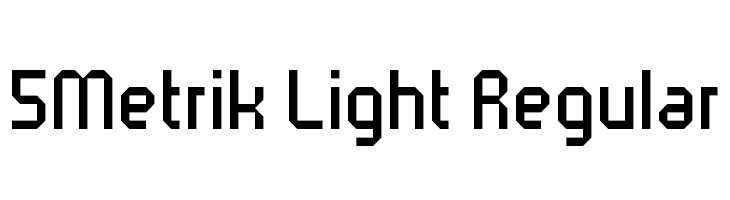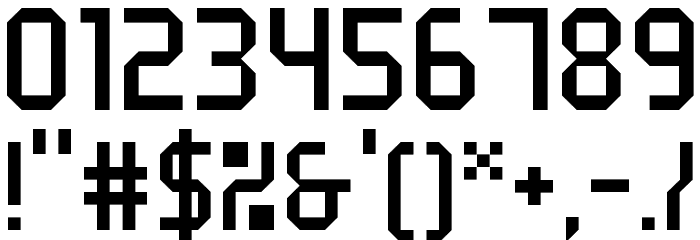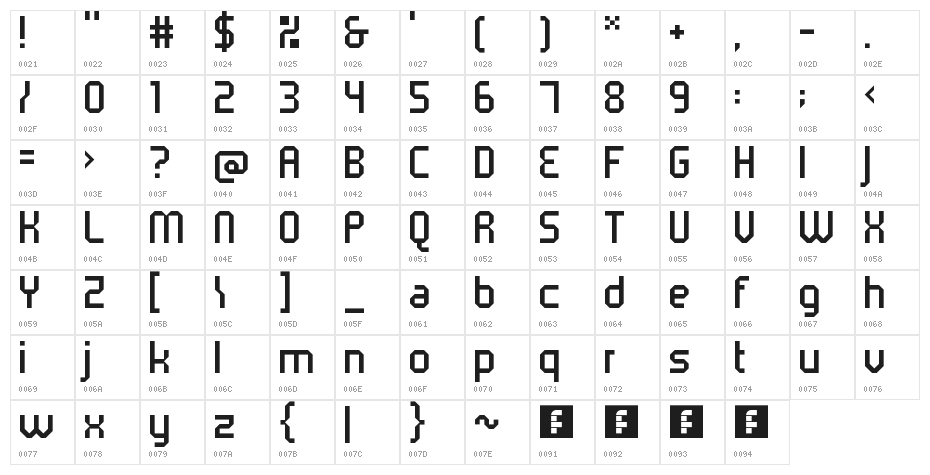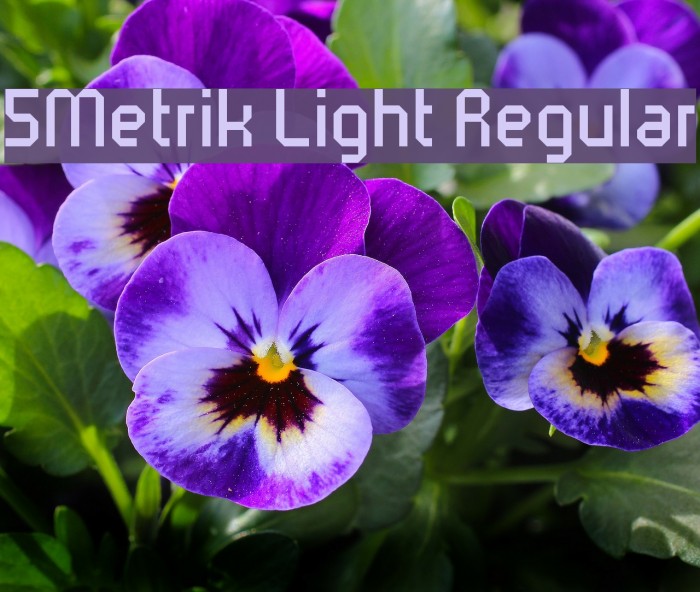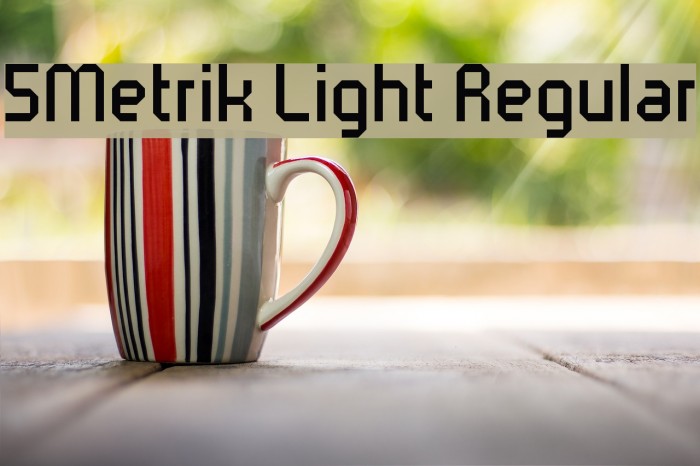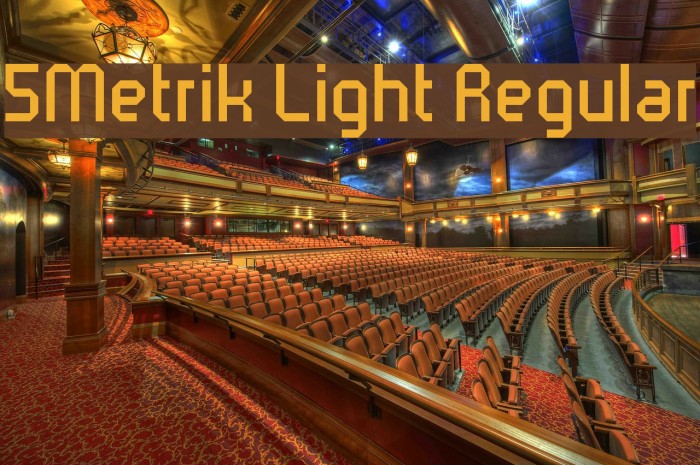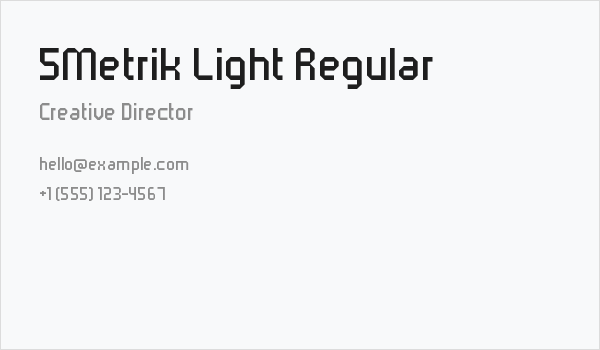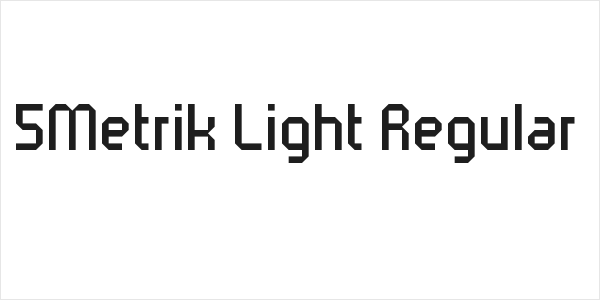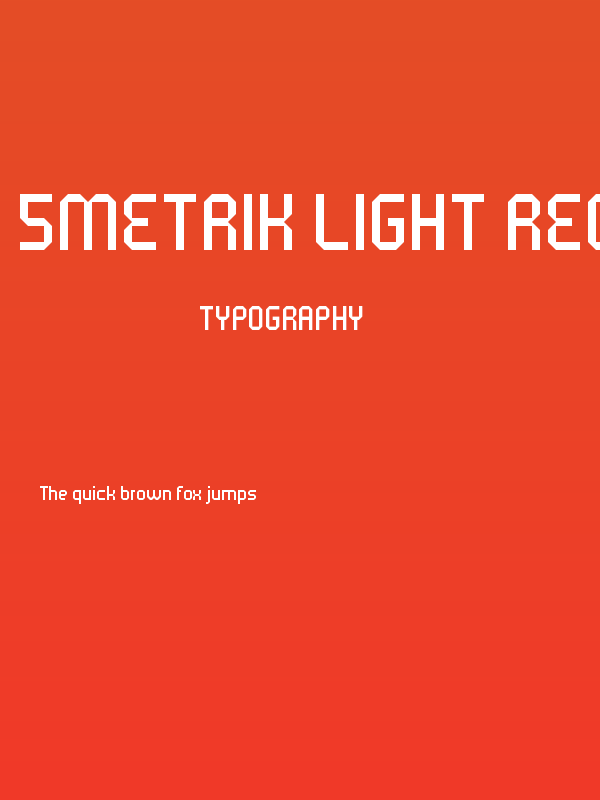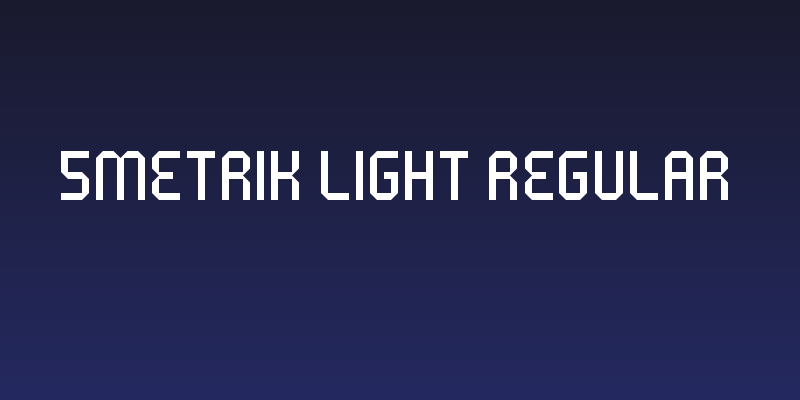
5Metrik Light Regular Font
5Metrik Light Regular Description
This font features a geometric and modern design with a distinct angular style. The characters are constructed with straight lines and sharp edges, giving it a futuristic and technical appearance. The uppercase and lowercase letters maintain a consistent height, contributing to a uniform look. The numerals and special characters follow the same design principles, ensuring cohesion across all elements. This font's clean and precise lines make it suitable for contemporary design projects where clarity and a modern aesthetic are desired.
| Proposed Projects | Ideal for tech branding, futuristic posters, digital interfaces, and modern architectural presentations. |